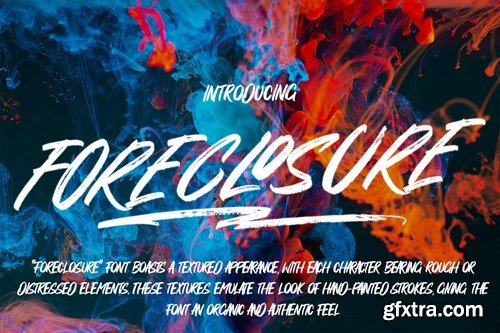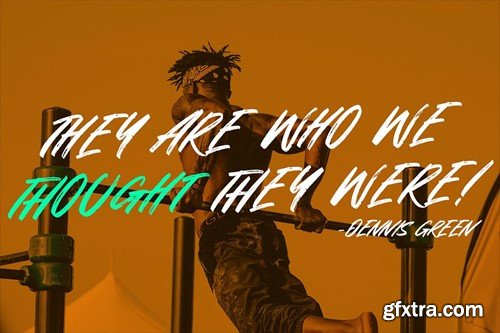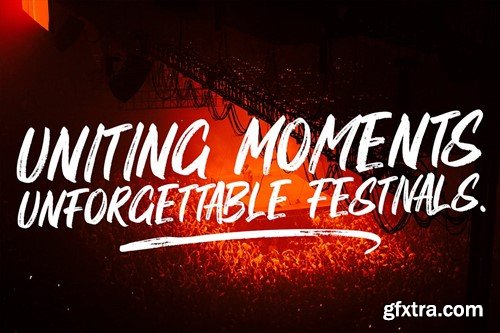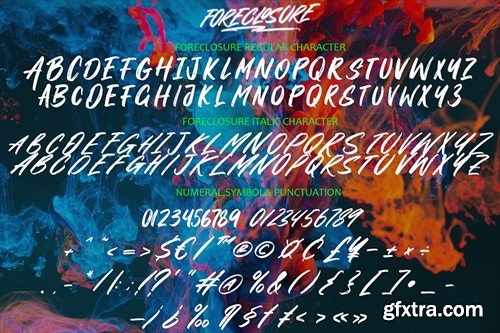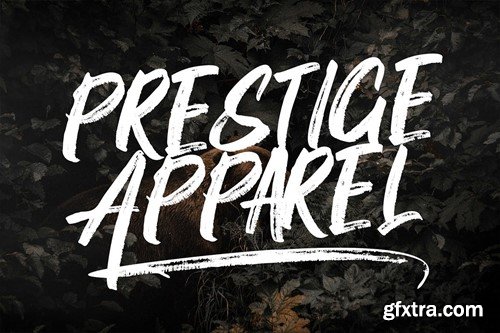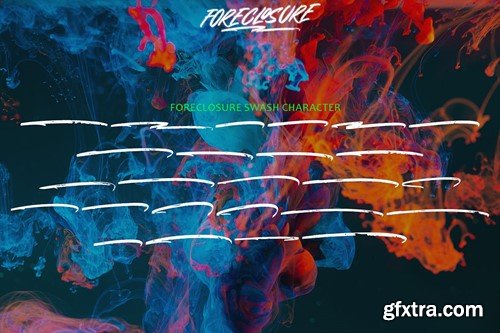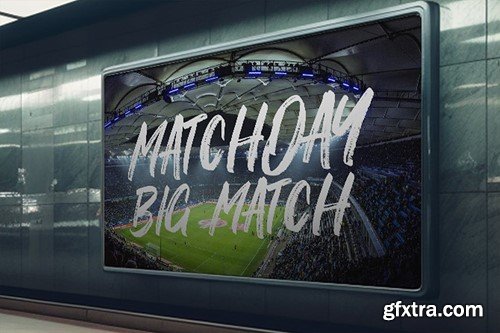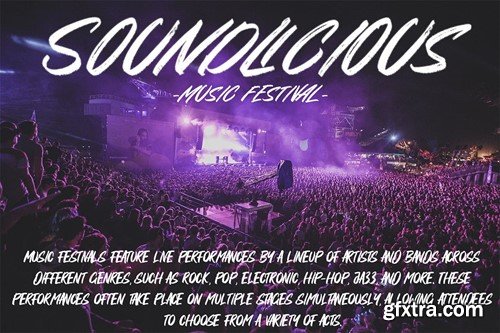
foreclosure - brush font 7A4X4R4
"Foreclosure" textured brush pack font, despite its non-script style, exudes a distinctive charm and versatility. Here's an explanation of its key features and benefits: Key Features: Textured Appearance: The "Foreclosure" font boasts a textured appearance, with each character bearing rough or distressed elements. These textures emulate the look of hand-painted strokes, giving the font an organic and authentic feel. Bold and Impactful: Despite its non-script style, "Foreclosure" maintains a bold and impactful presence. Each character is designed to stand out, making it suitable for headlines, titles, and other prominent design elements. Varied Weight and Texture: The font pack offers a range of weights and textures, allowing designers to choose the most appropriate style for their project. Whether seeking a subtle texture or a heavily distressed look, "Foreclosure" provides options to suit various design needs. Versatility: While "Foreclosure" is a non-script font, its textured appearance lends itself to a wide range of design applications. It can be used in branding, packaging, posters, and more, adding character and depth to any project. Timeless Appeal: The rugged and weathered look of "Foreclosure" gives it a timeless quality that transcends trends. It evokes a sense of authenticity and nostalgia, making it a versatile choice for both contemporary and vintage-inspired designs. Benefits: Visual Interest: The textured appearance of "Foreclosure" adds visual interest and depth to designs, making them more captivating and engaging to viewers. Expressive Typography: Despite its non-script style, "Foreclosure" allows designers to convey emotion, personality, and style through typography. Its rugged textures and bold presence make a statement in any design. Flexibility: With a range of weights and textures to choose from, "Foreclosure" offers flexibility in design. Designers can experiment with different styles to achieve the desired look and feel for their projects. Customization: Some variations of "Foreclosure" may offer options for customization, such as layered styles or variations in texture intensity. This allows designers to tailor the typography to their specific design preferences and requirements. Ease of Use: "Foreclosure" is compatible with a variety of design software and platforms, making it accessible to designers and creatives for both digital and print projects. In summary, the "Foreclosure" textured brush pack font, despite its non-script style, offers a rugged and versatile option for designers seeking to add character and depth to their typography.